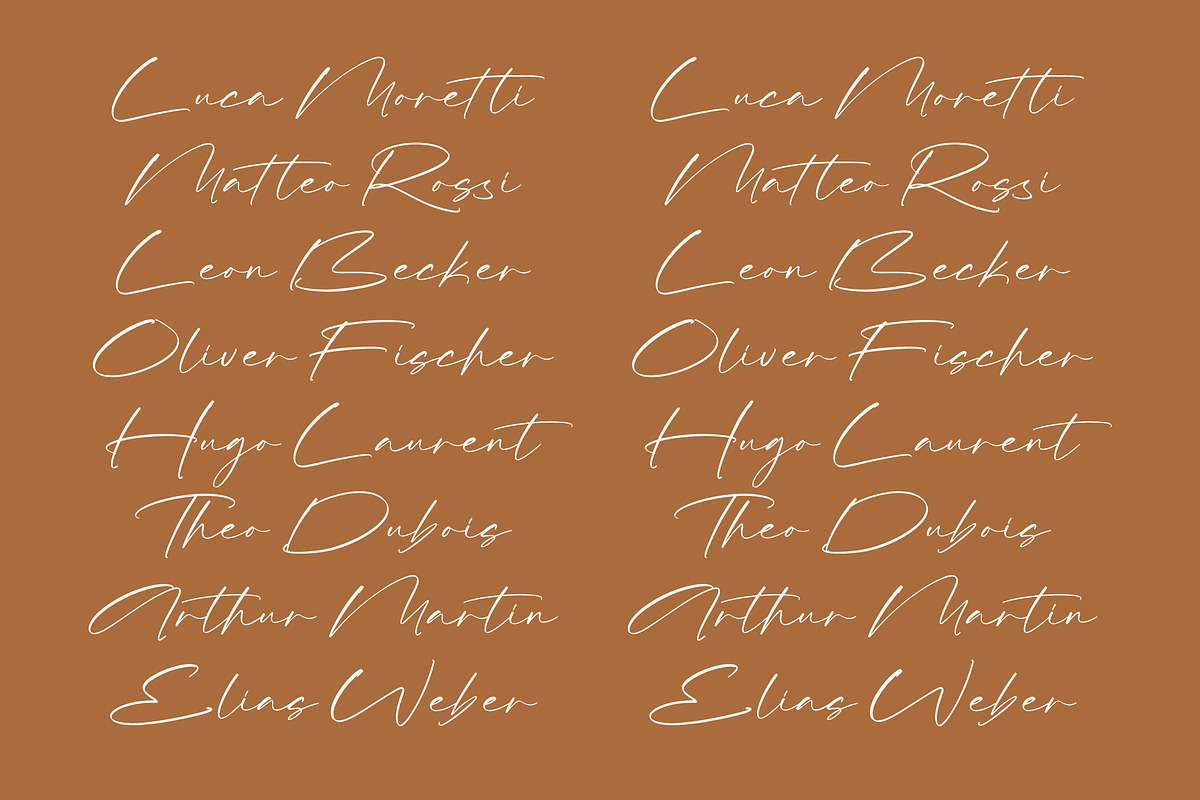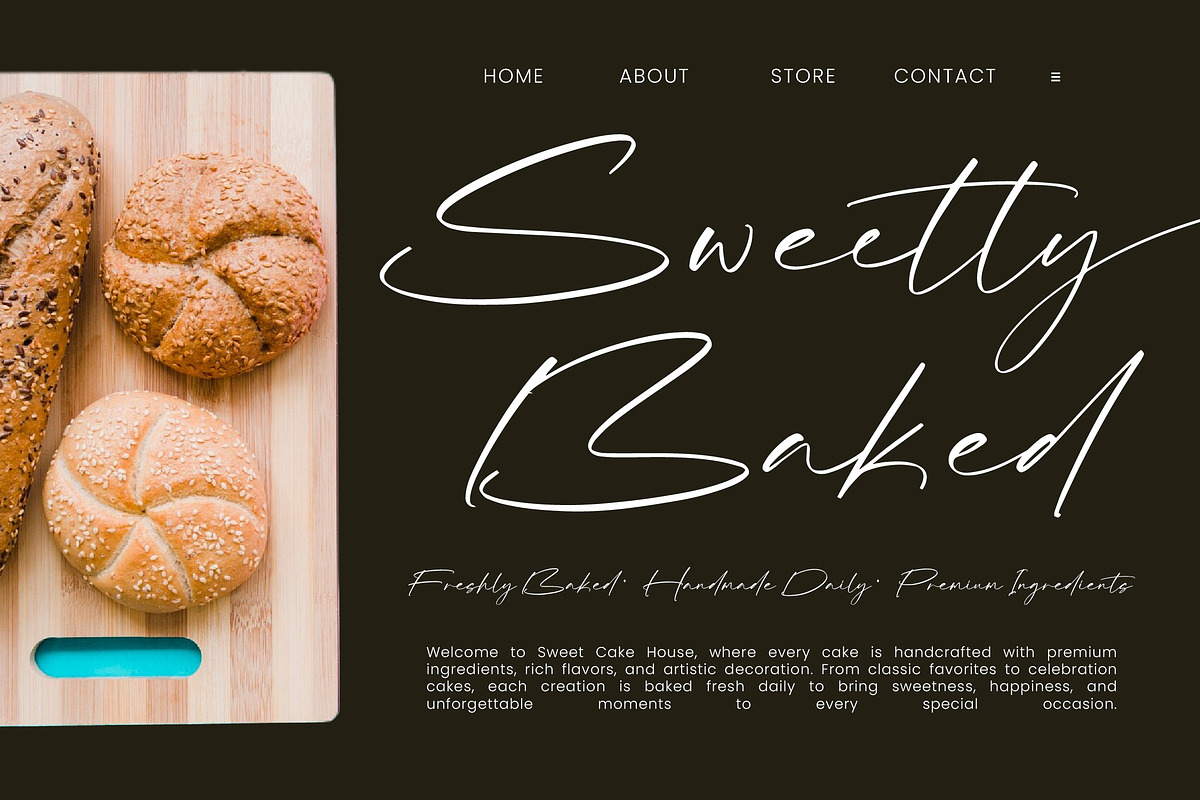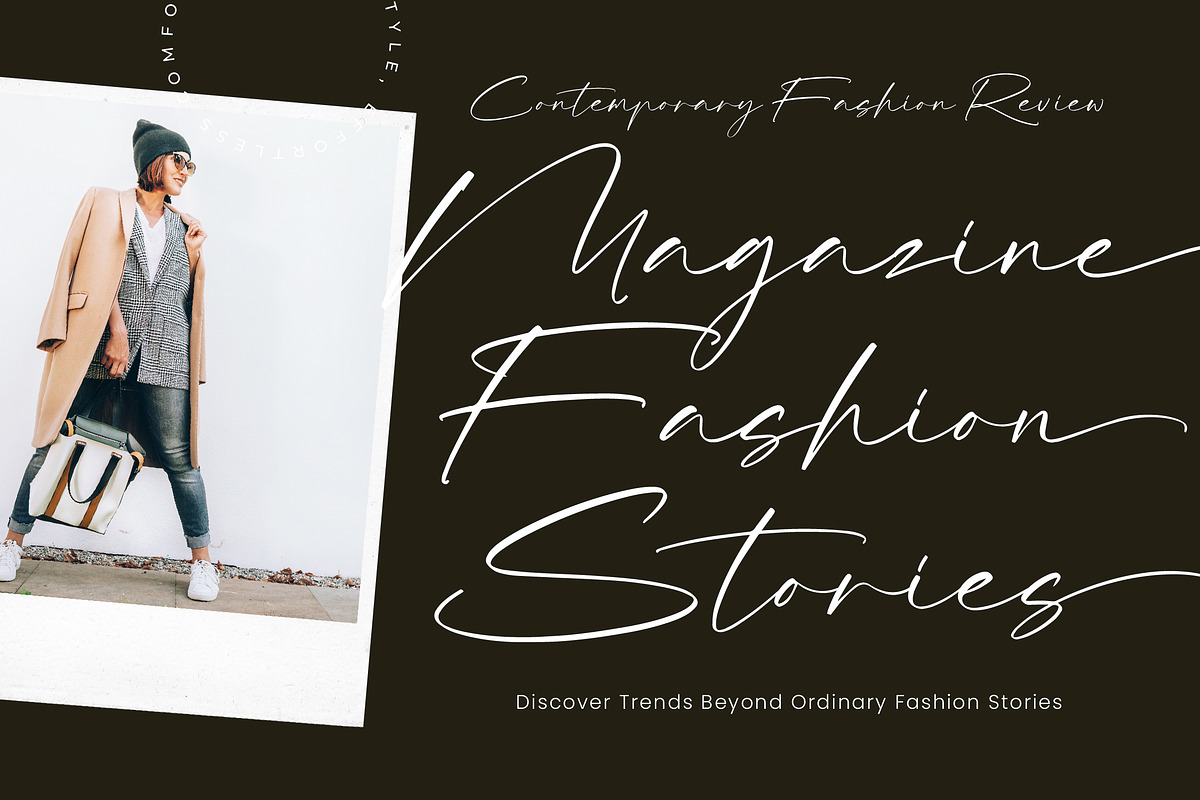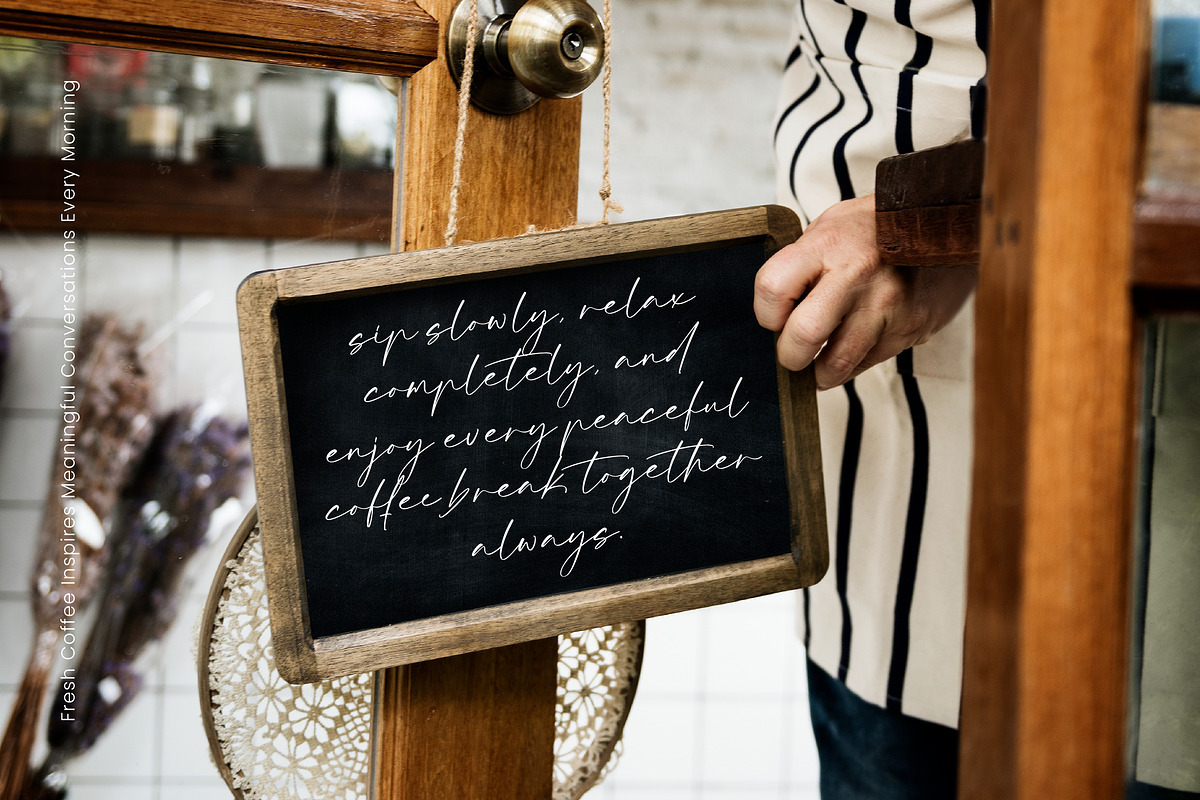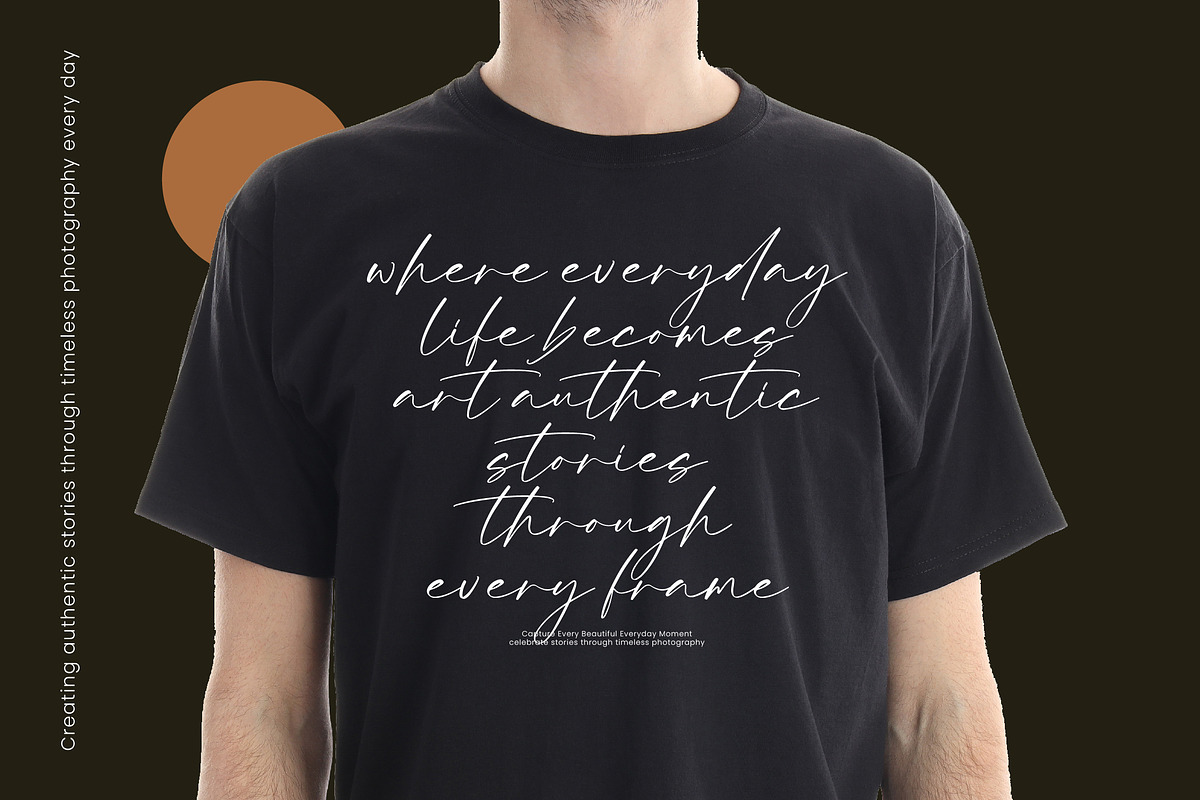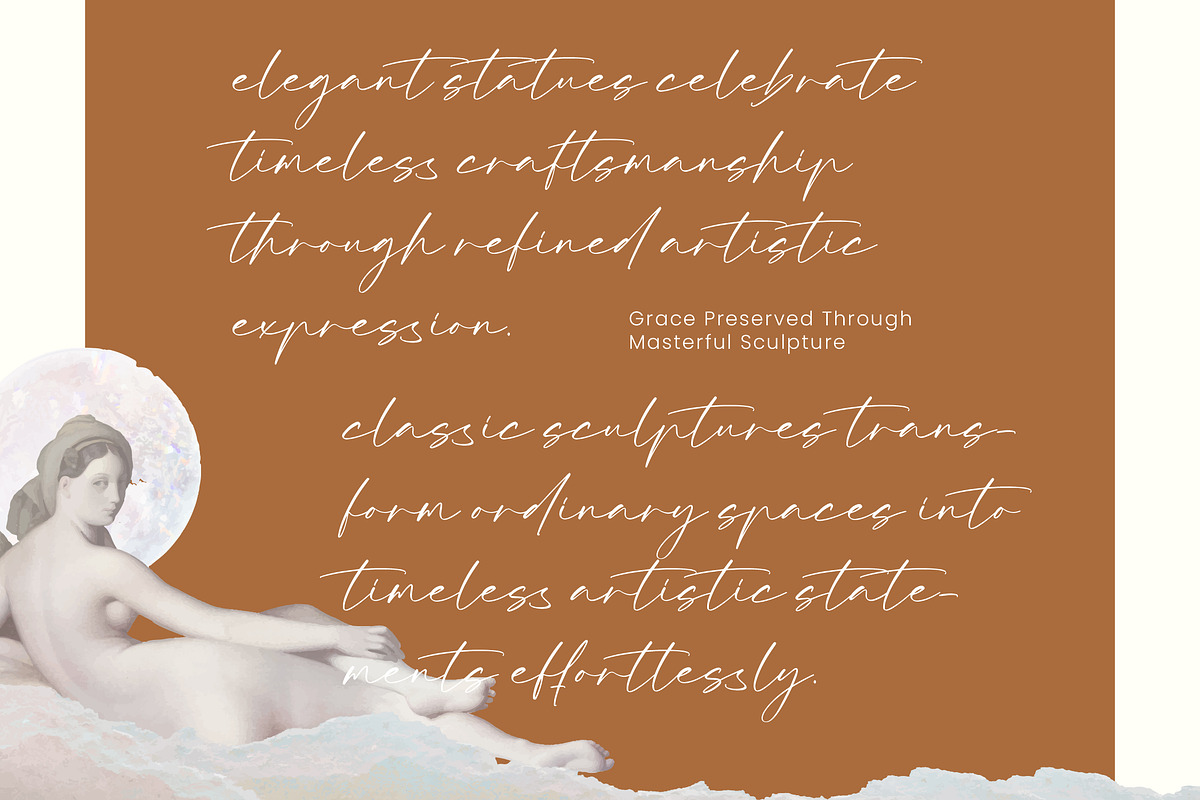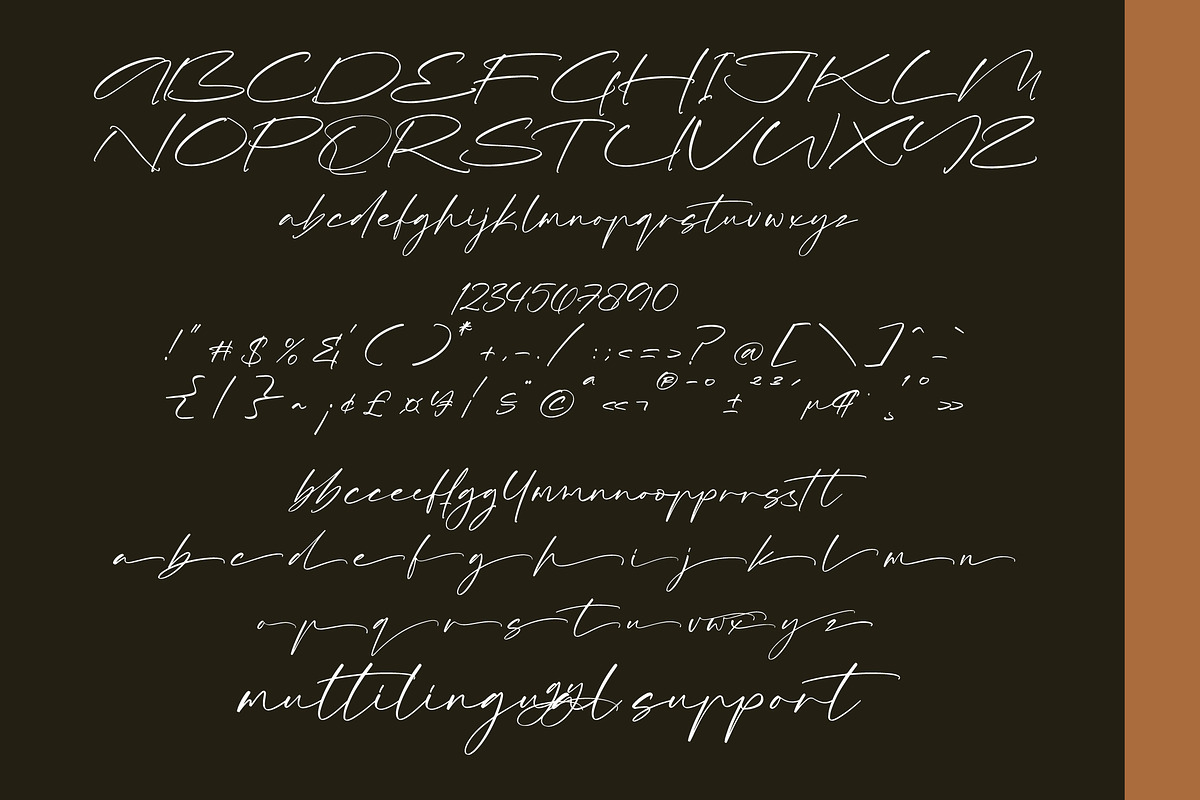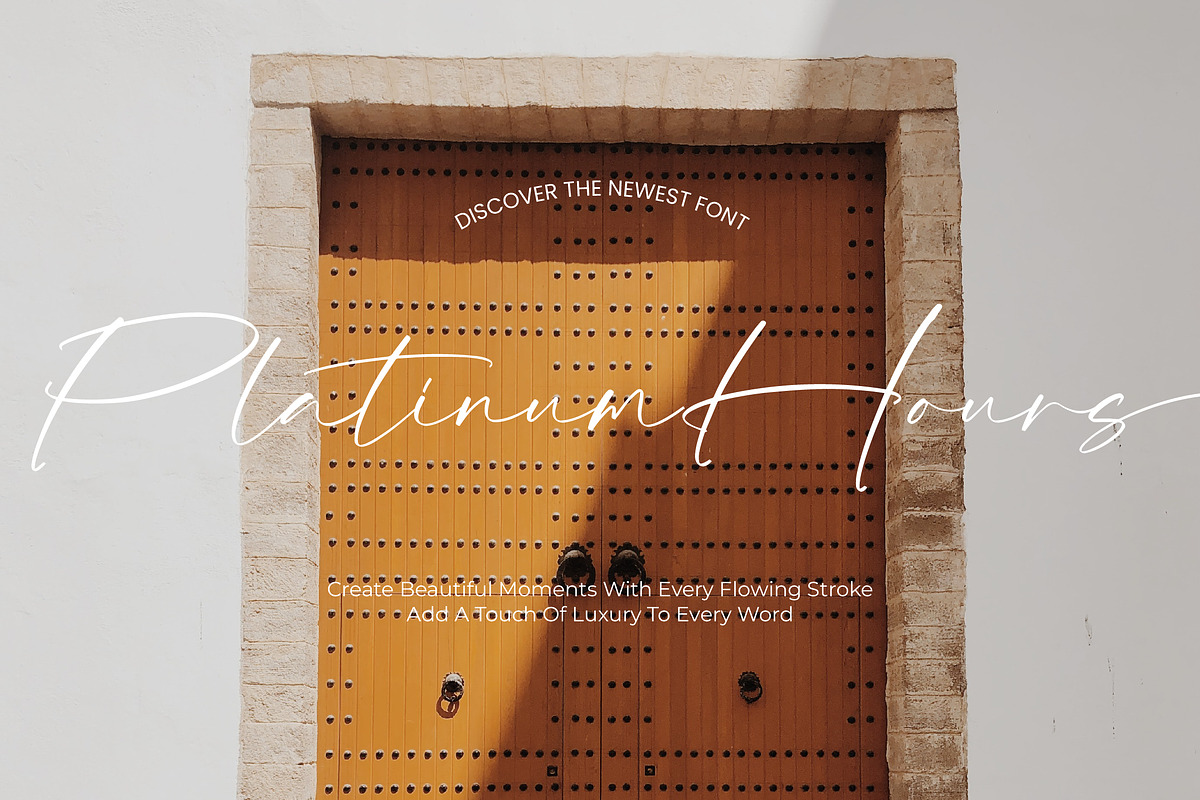
Platinum Hours
Platinum Hours is an elegant signature script typeface designed to bring a sophisticated, luxurious, and romantic touch to your creative projects. Its flowing strokes, graceful curves, and refined handwritten forms create a beautiful signature-inspired aesthetic that feels personal yet polished.
With its delicate and expressive character, Platinum Hours is ideal for designs that require an upscale handwritten appearance. It works beautifully across branding, wedding stationery, fashion identities, beauty products, packaging, editorial layouts, and personal branding projects.
Features: • Elegant signature script style • Flowing and sophisticated letterforms • Graceful handwritten appearance • Refined curves and extended strokes • Luxury and feminine character • Stylish display lettering • Suitable for logos and branding • Ideal for elegant invitations and stationery • Great for both digital and print projects
Platinum Hours adds an elegant and timeless handwritten personality to your designs. Its long flowing strokes and sophisticated signature forms make it a beautiful choice for creating memorable logos, luxurious branding, romantic stationery, and refined typography compositions.